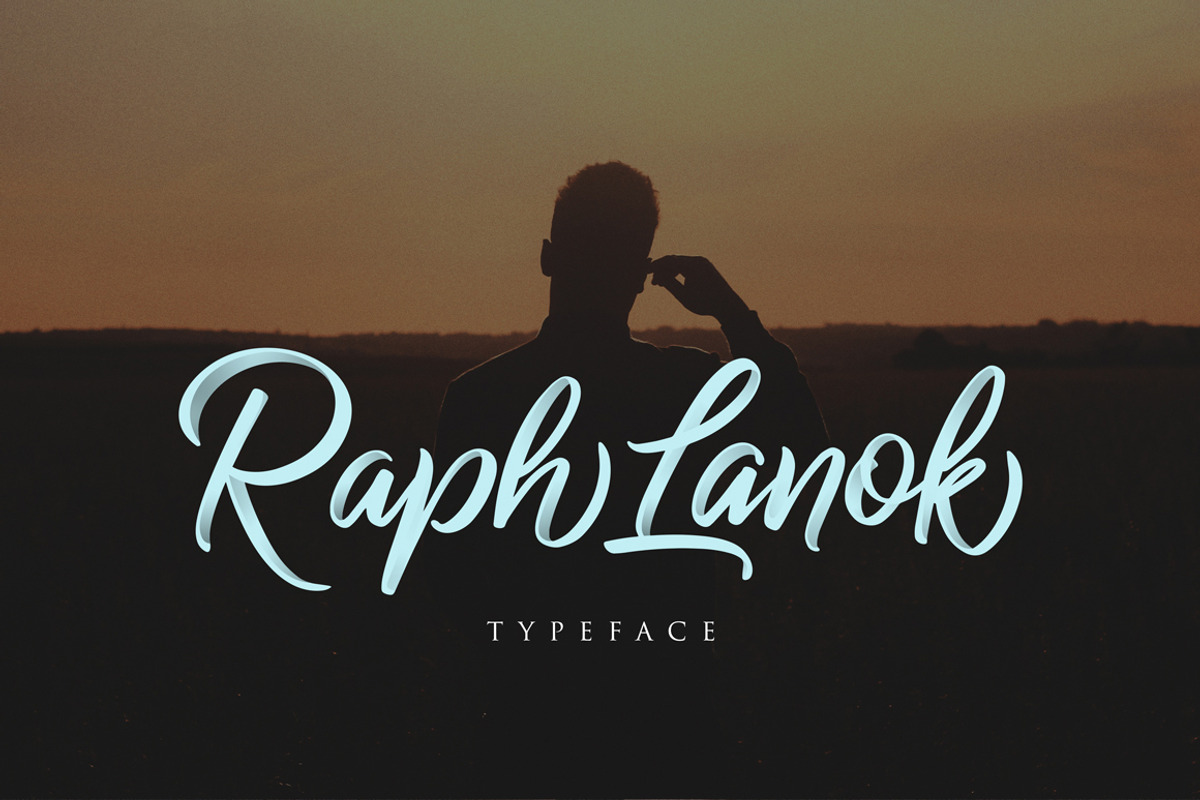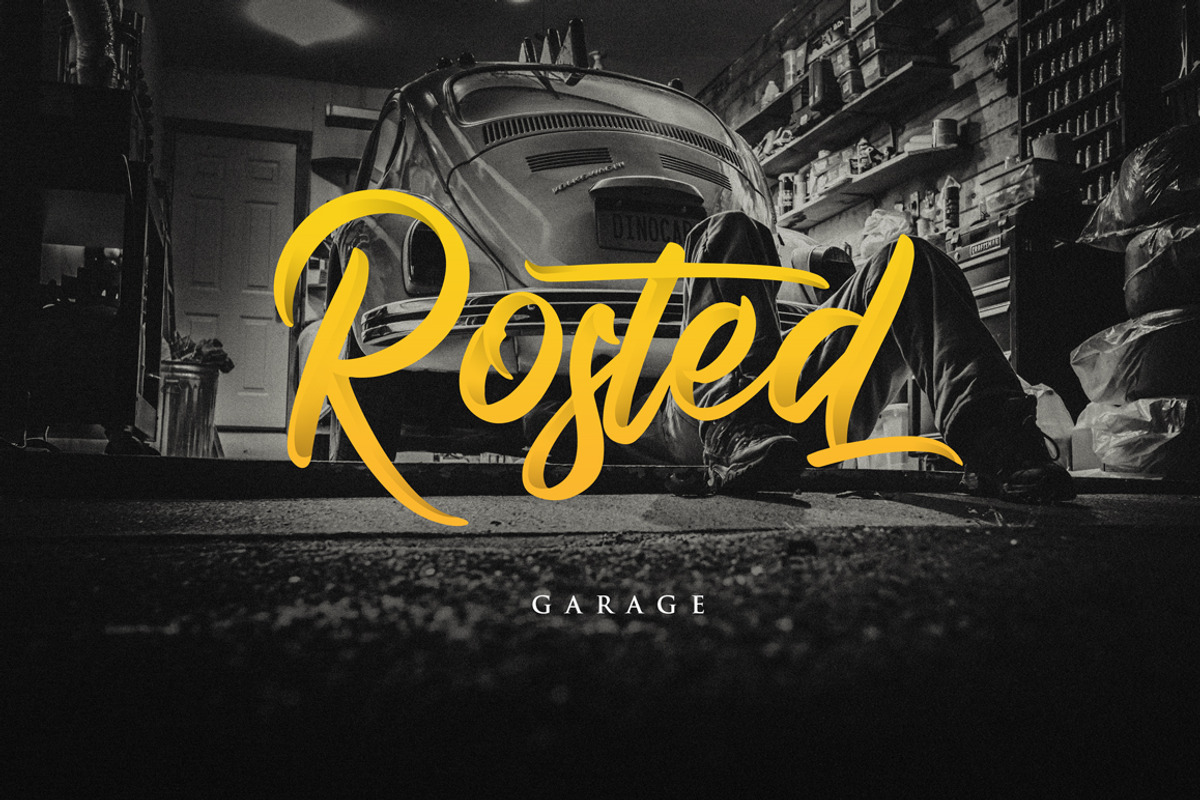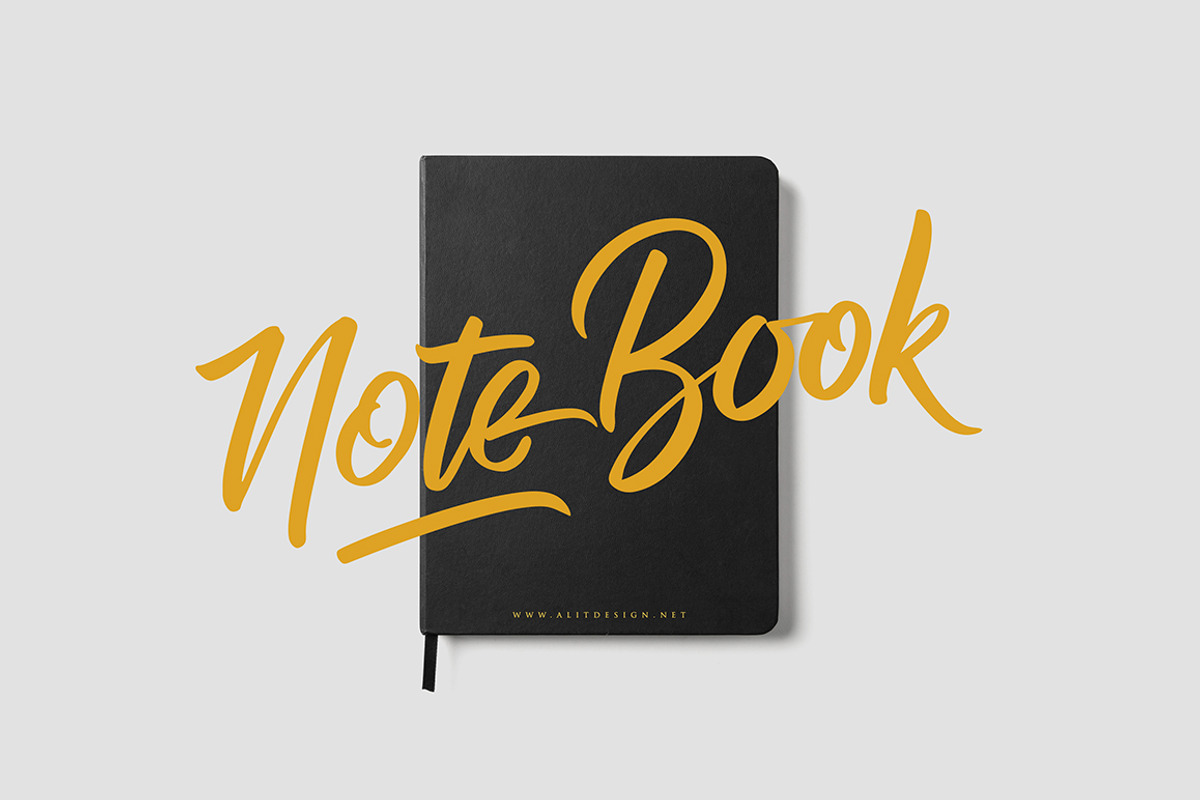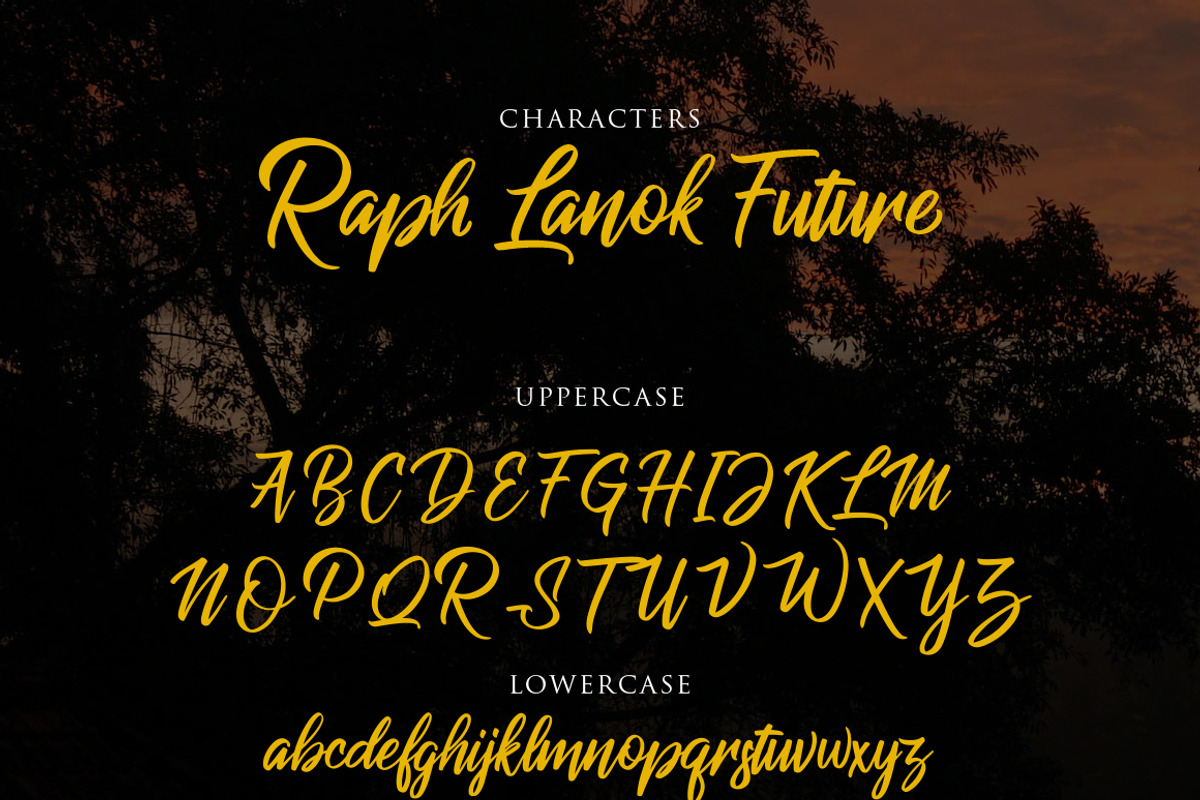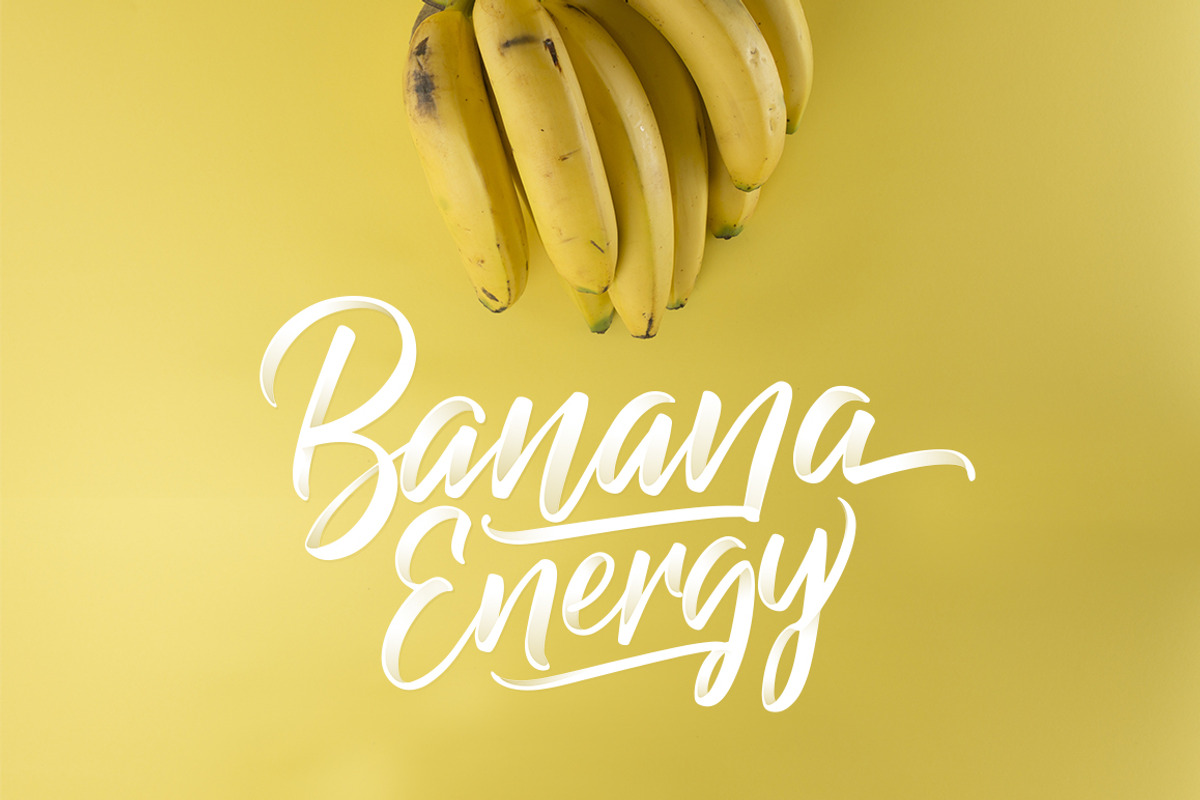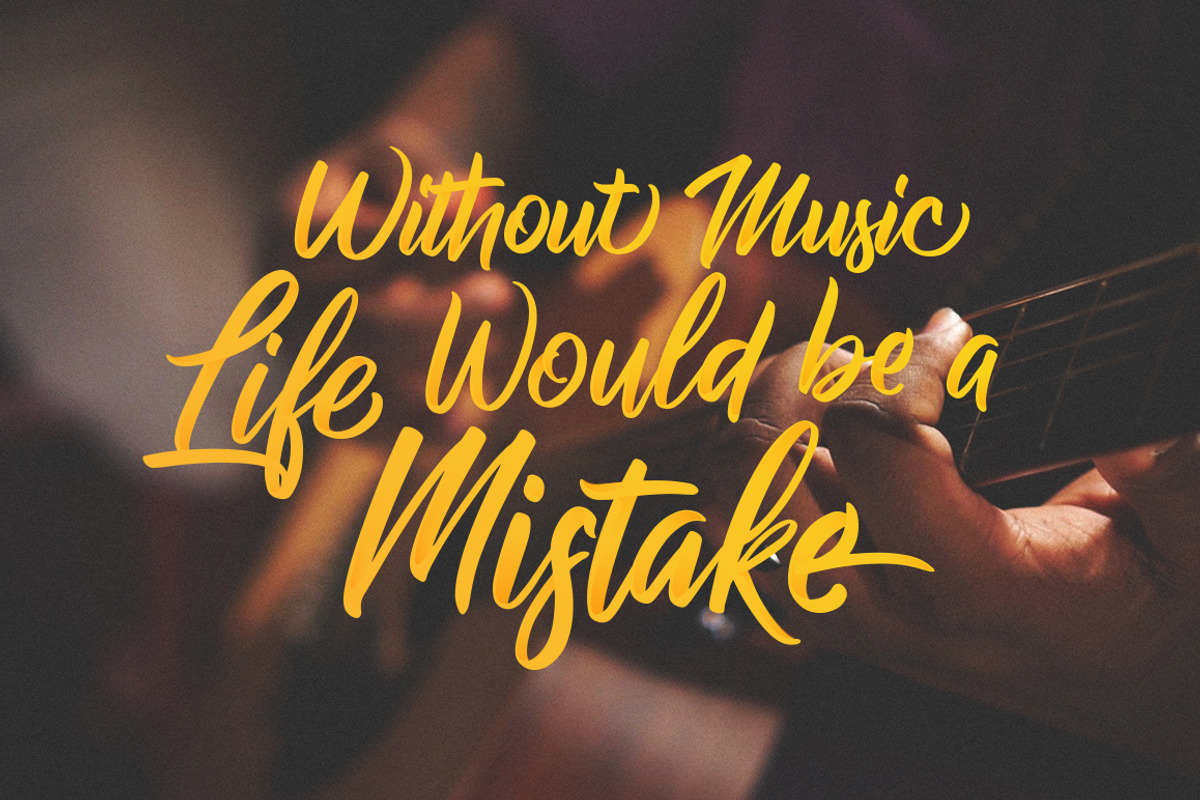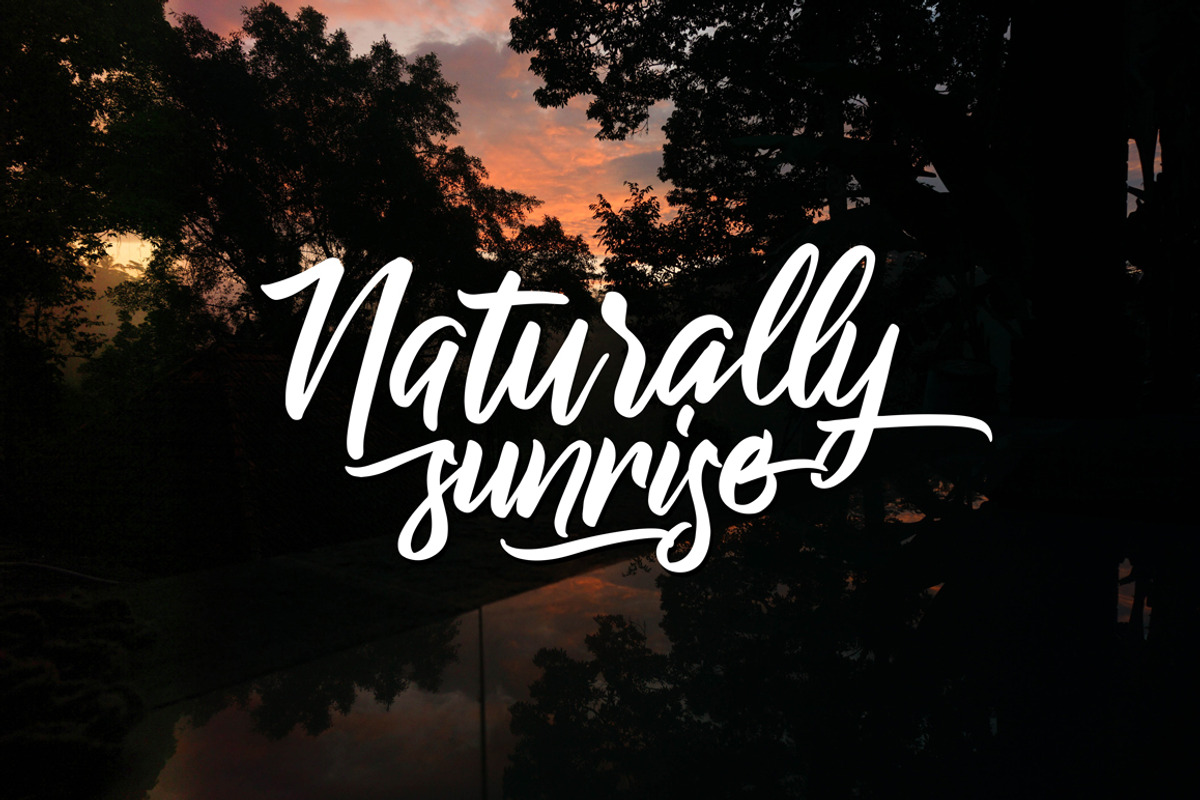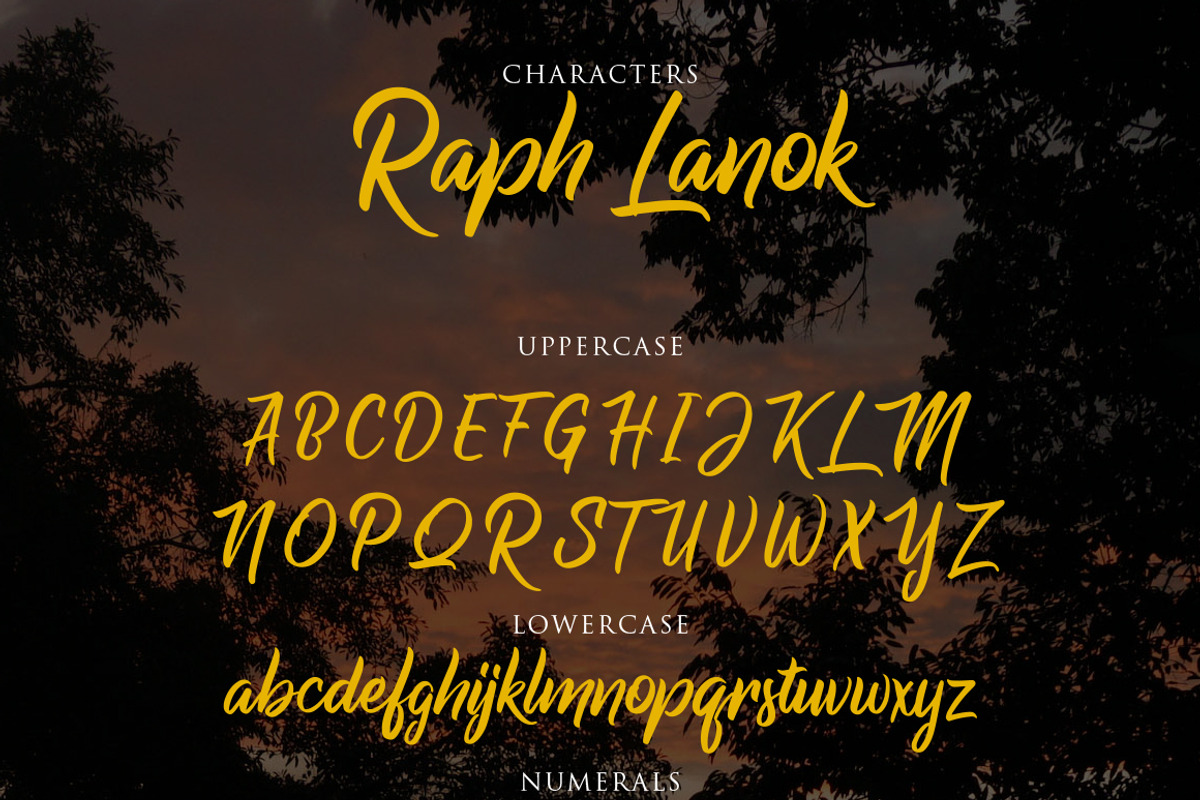
Raph Lanok Typeface
Introducing Raph Lanok Typeface which has a elegant hand lettering brush style. So it looks natural like a handmade, because Raph Lanok family have a more choice characters. This font is best used for your design project that has the concept of fun, brave and sporty. Can also be applied to the design of a logotype, header website, make some lettering a quote, t-shirt design etc.
Raph Lanok has three font styles are similar but a different character, namely is Raph Lanok Future and Raph Lanok Rusty but that you also get a Raph Lanok Swash of line fast brushed like a using font.
Raph Lanok Typeface deserve to be one of your fonts collections, because it is unique and has many options of alternative glyphs.
Numerals & Punctuations (OpenType Standard)
Accents (Multilingual characters)
- Character Set A-Z
- Standart Ligature
- Apercase Alternates
- SS01
- SS02
Raph Lanok Typeface by alit design fits naturally into Branding, posters, packaging, typography.